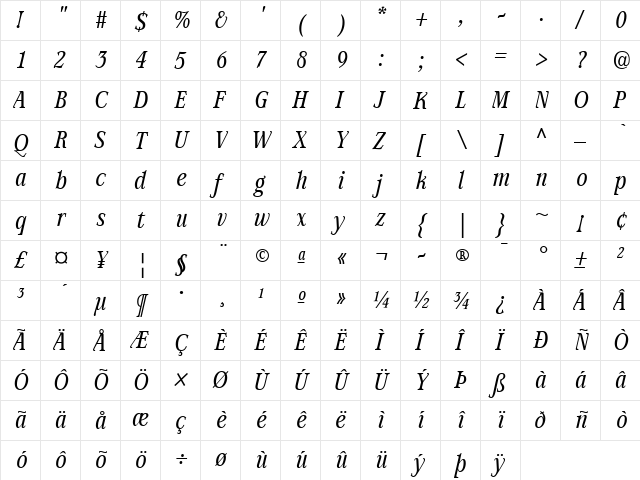
AIAlign Italic
Design Context for AIAlign Typeface
AIAlign takes a measured approach to typography — its balanced proportions and neutral character make it a reliable workhorse for both digital and print work. Its italic angle brings a sense of urgency and motion to the letterforms.
Pro Tip: Try AIAlign for annotation and caption copy alongside an upright companion — the contrast in angle creates a dynamic but ordered typographic system.